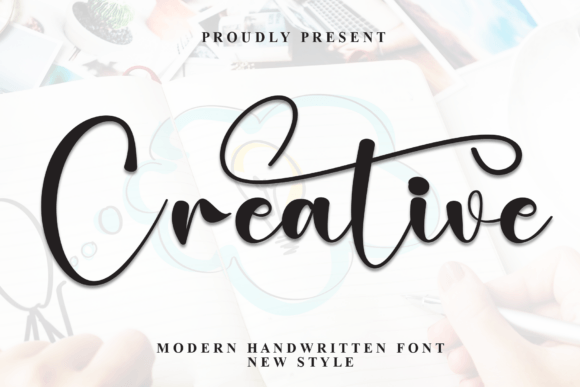
The Birth of a Masterpiece: When Creativity Strikes
It’s that moment when the ideas start flowing, and your imagination knows no bounds. You’re brainstorming, sketching, and experimenting – the creative process is in full swing. And then, it happens – you stumble upon the perfect font that brings your design to life. For many designers, this moment is a turning point, setting the tone for a project that’s both beautiful and impactful.
Enter Creative Font, a stunning handwritten script that embodies elegance and sophistication. This versatile font is designed to add a personal touch to invitations, branding, and social media, making it a valuable asset for designers. With its fluid strokes and natural flow, Creative Font brings warmth and creativity to any design, making it a go-to choice for those who crave a unique look.
Creative Font Key Features
- Unique Characteristics: Features a unique blend of modern and vintage elements, making it ideal for creative and artistic projects.
Design Review: Creative Font
Overall, I was really excited to dive into “Creative Font” and see what it had to offer. Here’s my honest take:
- Unique Typography: Creative Font brings a fresh and modern feel to any design project. The unique typography and flair for experimentation make it stand out from more traditional fonts.
- Lack of Consistency: At times, the font’s unique style felt a bit inconsistent, with some letters or characters looking slightly out of place.
- May Not Suit All Audiences: While I loved the font’s modern feel, I worry that it might not be suitable for all design projects or audiences, particularly those requiring a more traditional or conservative look.
While Creative Font has its limitations, I believe it’s a great choice for designers looking to add a touch of modernity and experimentation to their projects. With some careful consideration and planning, it can be a fantastic addition to any design toolkit.